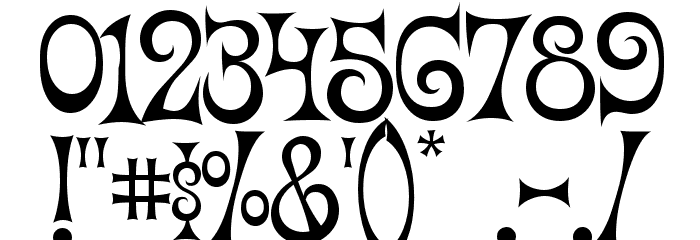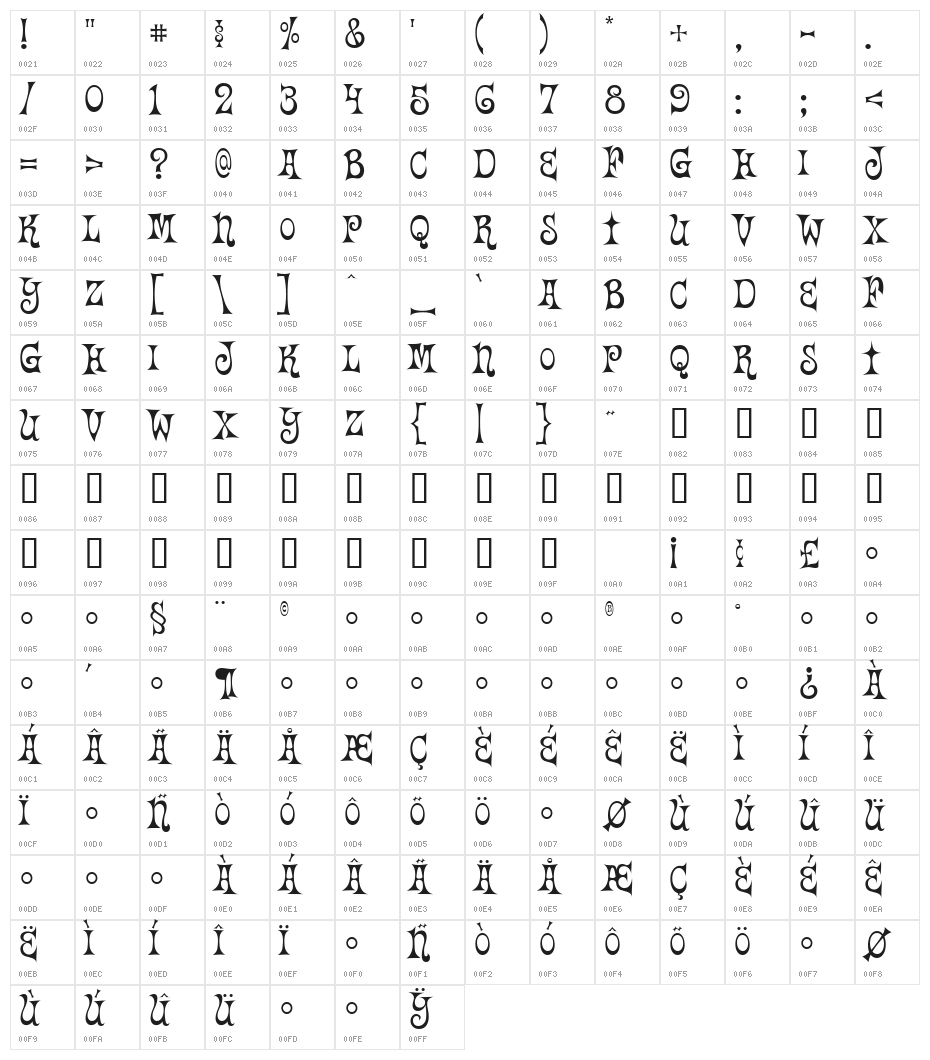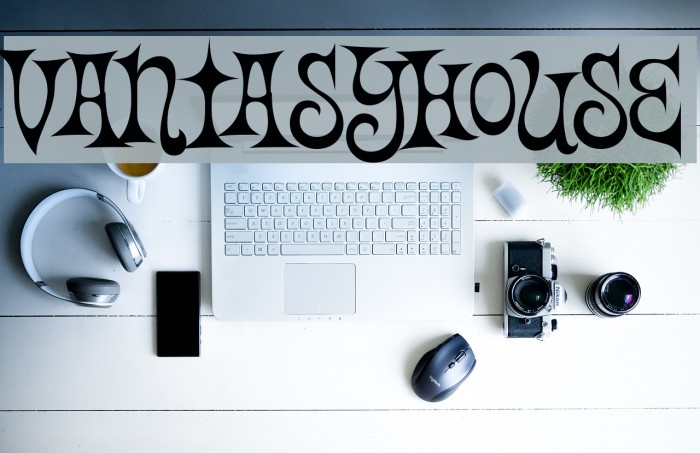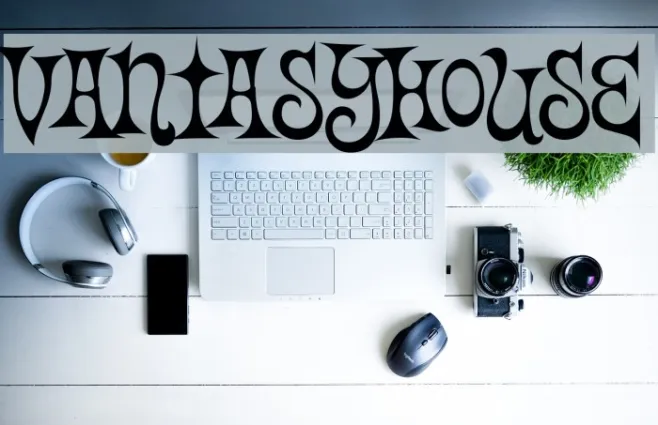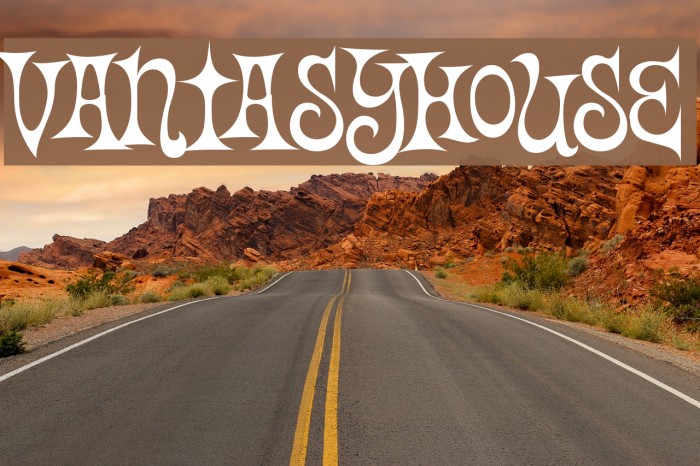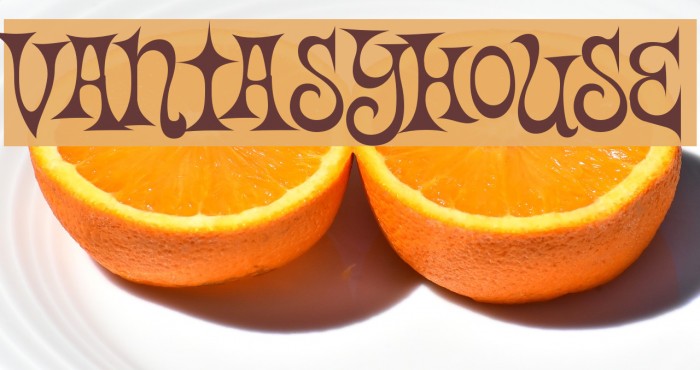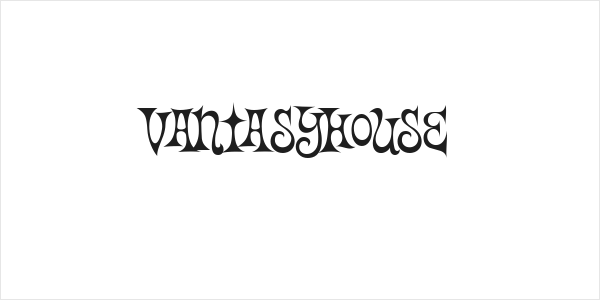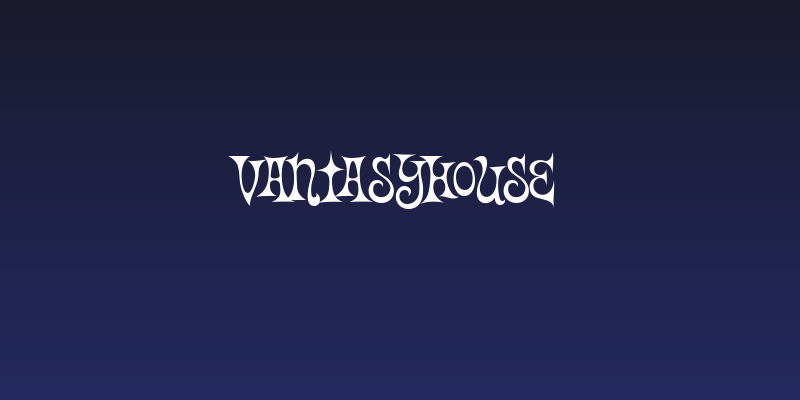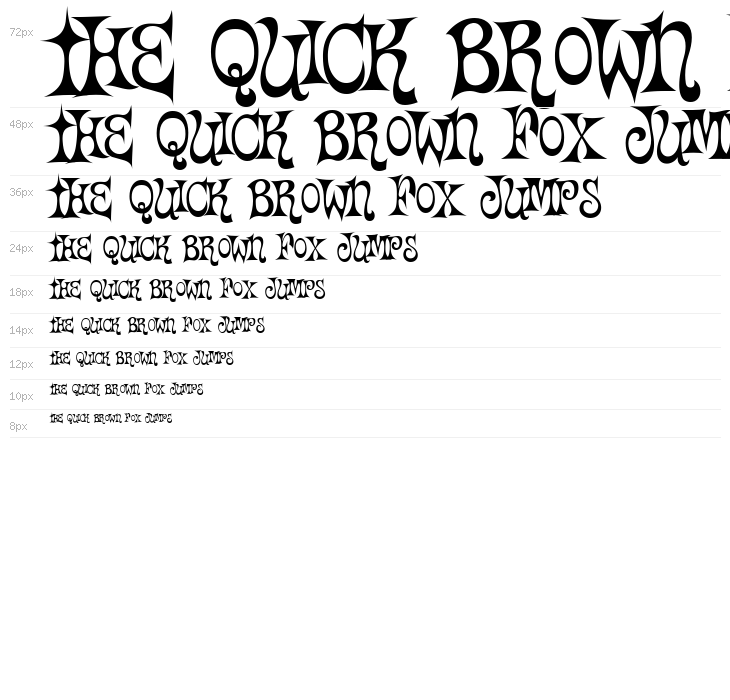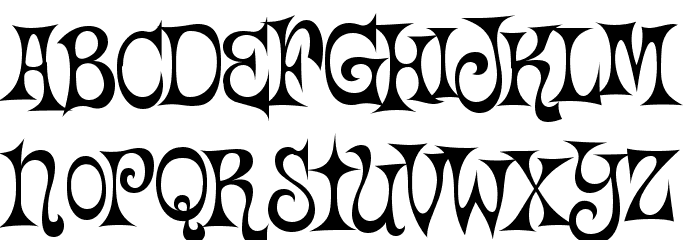
Vantasyhouse Font
Vantasyhouse Description
This font features a highly decorative and whimsical style, characterized by its intricate and playful letterforms. Each character is adorned with unique flourishes and curves, creating a sense of movement and fantasy. The uppercase letters are bold and dramatic, with exaggerated serifs and swirls that give them a distinctive, almost magical appearance. The lowercase letters maintain the same level of ornamentation, ensuring consistency throughout the typeface. Numbers and special characters are equally elaborate, making this font ideal for creative and artistic projects. The overall design is reminiscent of a fairy tale or fantasy theme, perfect for capturing attention and adding a touch of enchantment to any text.
| Overall Style | Fantasy, Decorative |
| Proposed Projects | Ideal for fantasy-themed posters, book covers, invitations, and branding that requires a magical touch. |